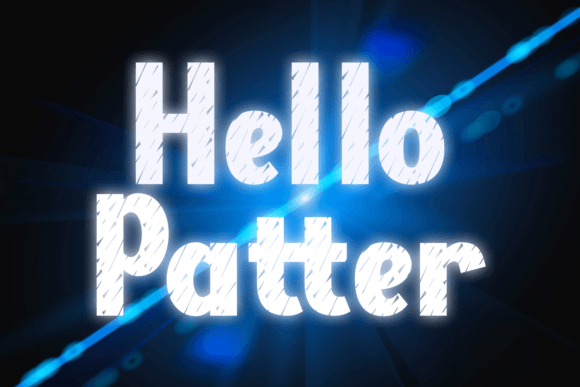
Prepare yourself for a font that will electrify your designs with a touch of playful charisma! Meet Hello Patter, the captivating display font that will ignite your creations with undeniable flair.
Each letterform in this remarkable font bursts with energy, ready to transform your movie posters, t-shirts, and banners into instant showstoppers. Picture your designs radiating with the vibrant spirit of Hello Patter, capturing the attention of every onlooker.
But Hello Patter's allure doesn't stop at its visual appeal. This font is a true workhorse, effortlessly adaptable to a myriad of design projects. Enchanting offers, eye-catching sales announcements, and heartfelt quotes will sing with a new allure when adorned with the playful strokes of Hello Patter.
So, why settle for ordinary fonts when you can make an extraordinary statement? Embrace the playful spirit of Hello Patter and watch your designs soar to new heights of brilliance.